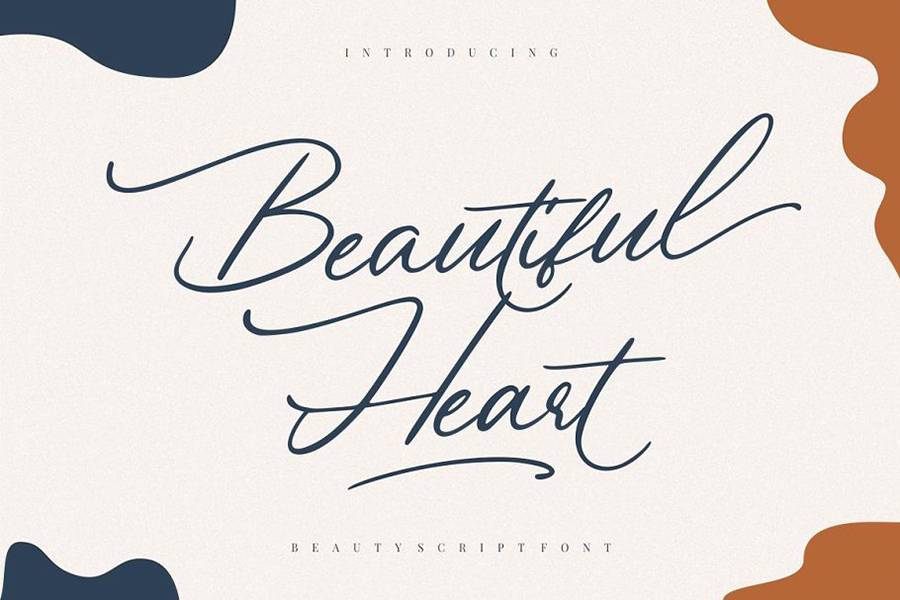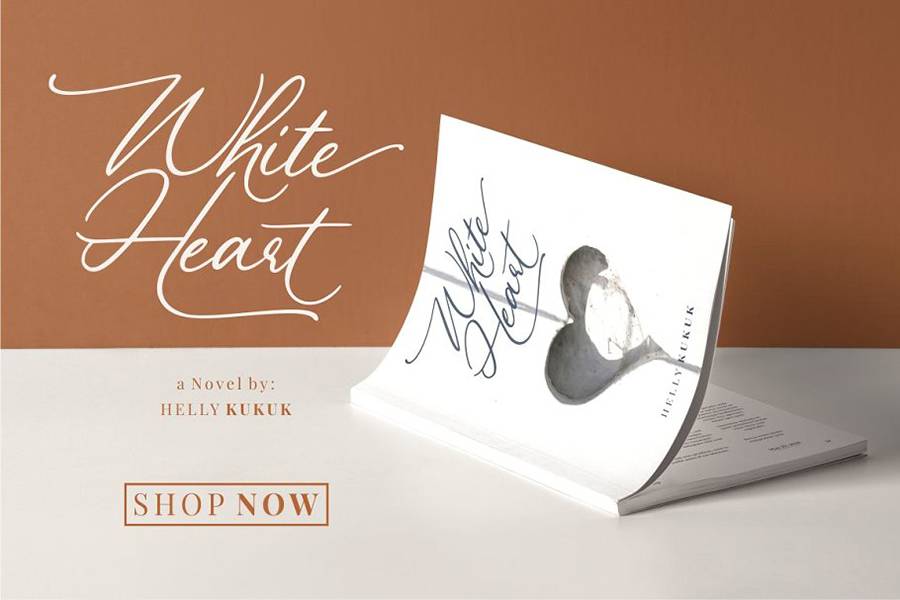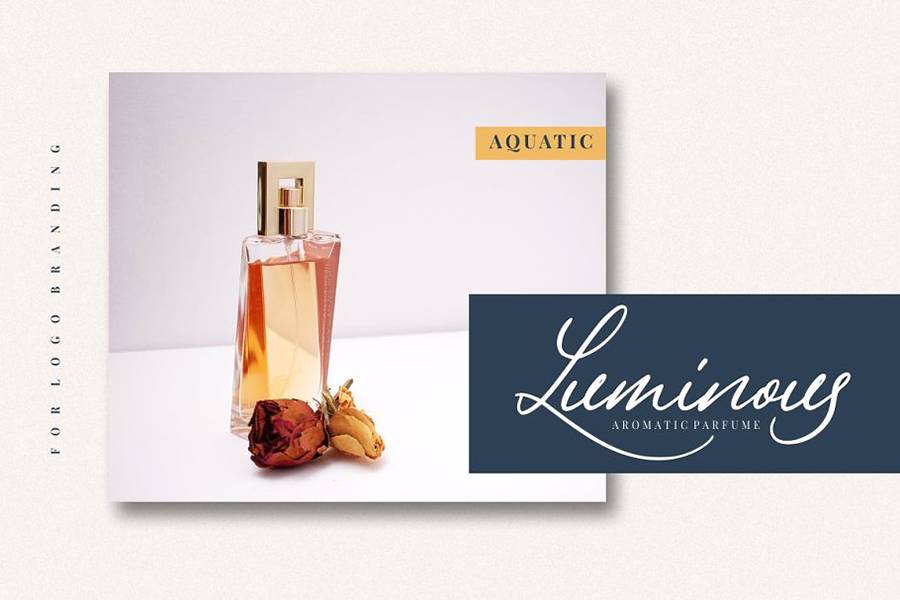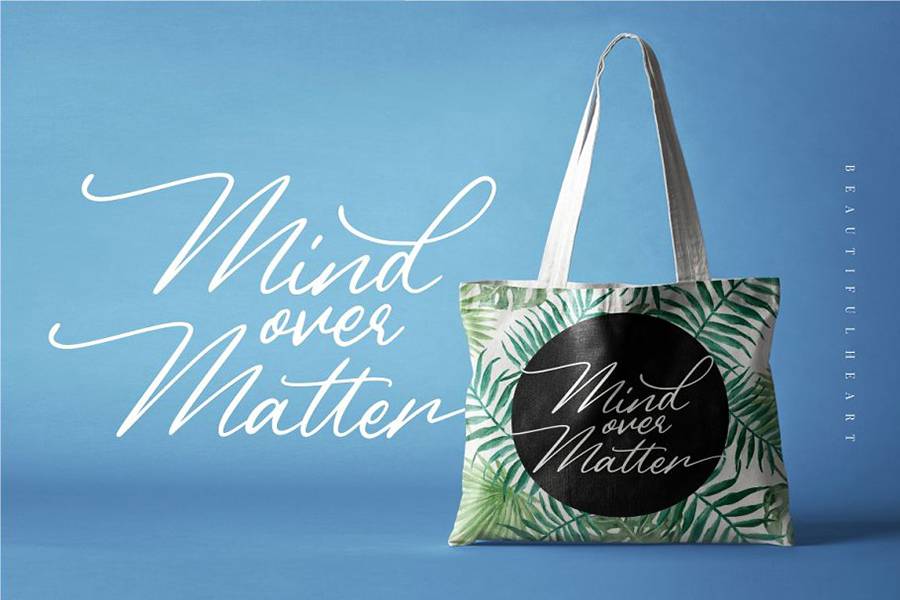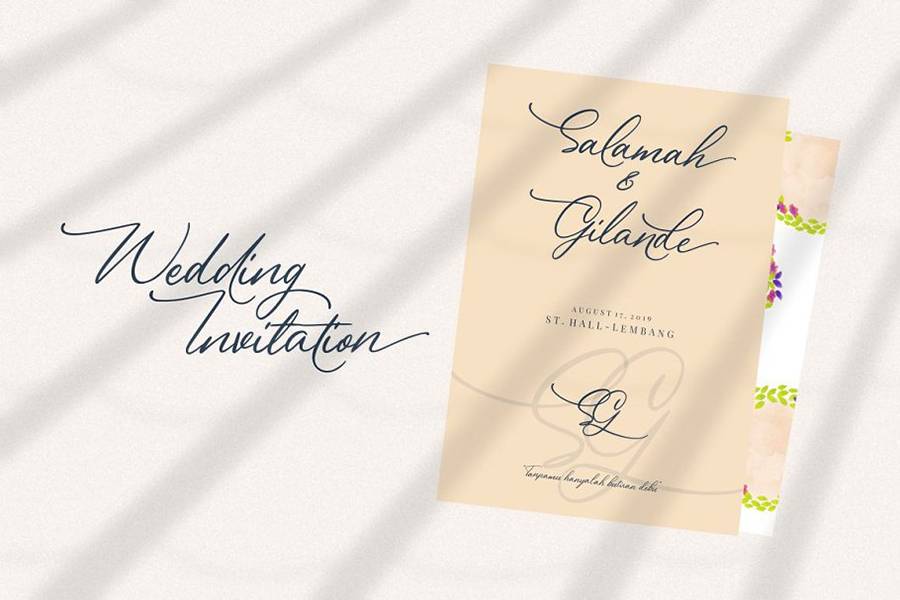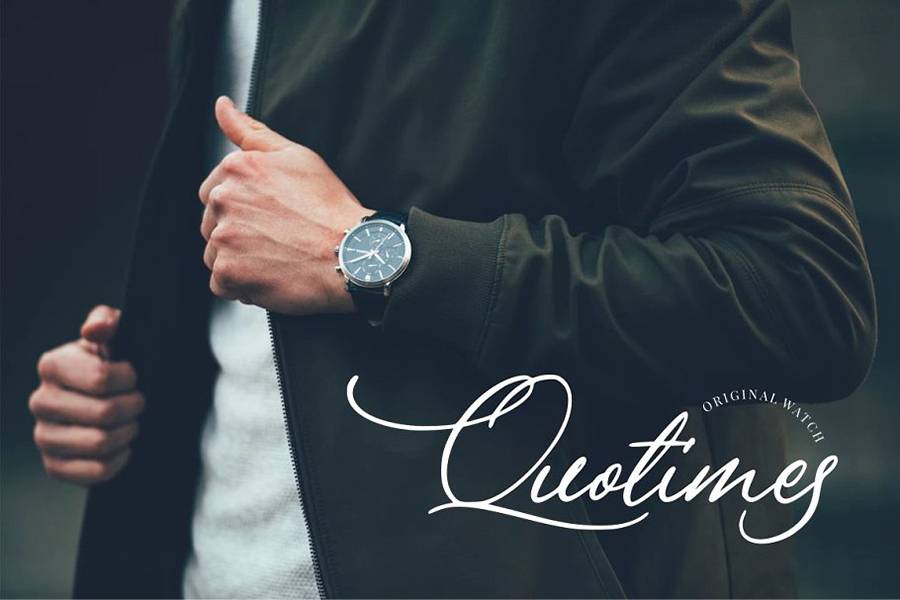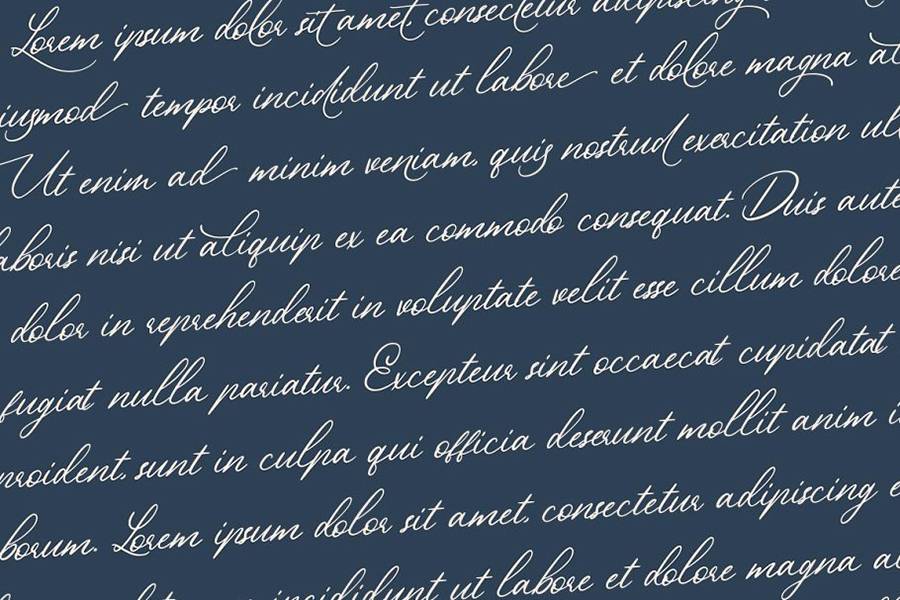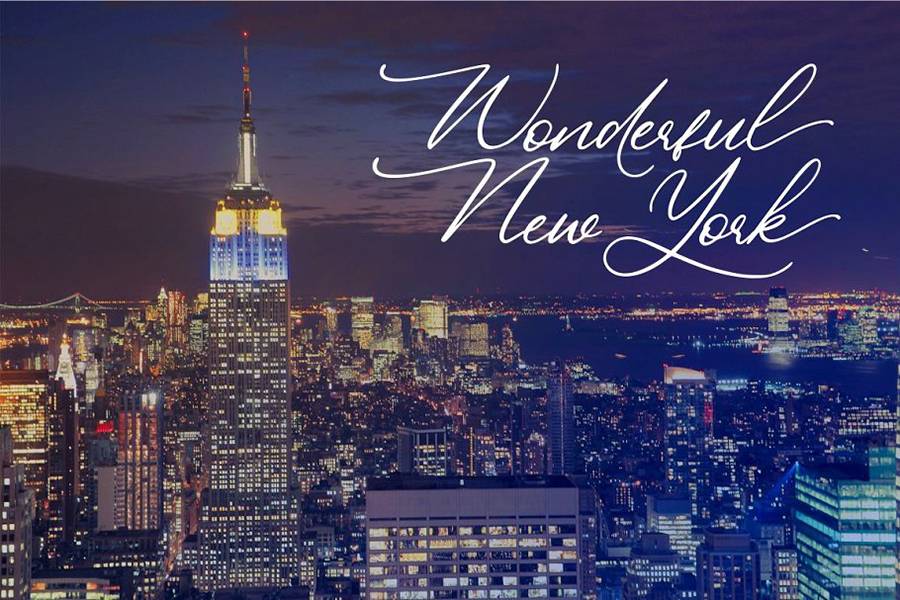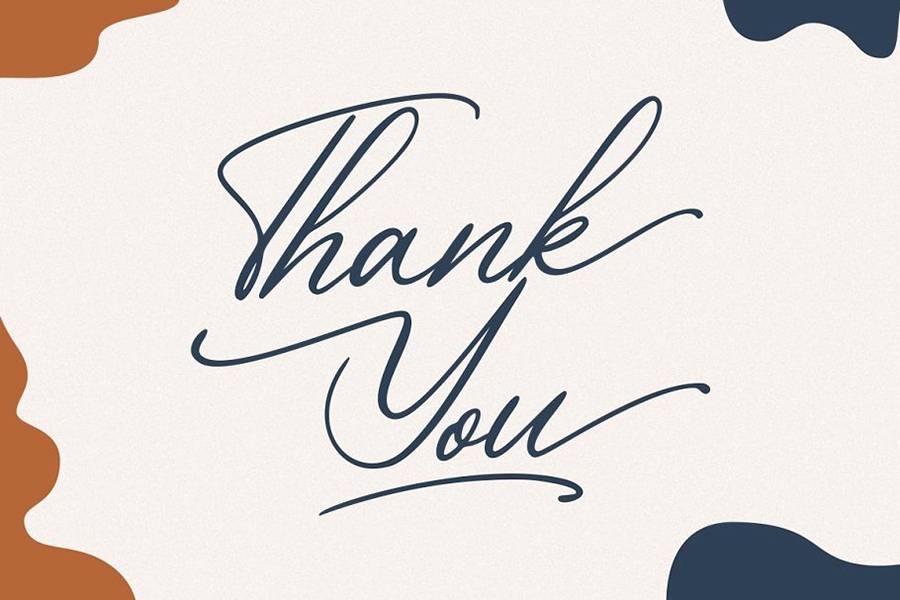
Beautiful Heart Script is an elegant and delicate script font that features a graceful, flowing hand-lettered style with fine, thin strokes and a moderate slant. Its light weight and airy character shapes give it a sophisticated and romantic feel, making it perfect for wedding invitations, luxury branding, and feminine editorial designs. This font’s refined charm and legibility in both uppercase and lowercase letters make it ideal for adding a touch of elegance to headlines, logos, and decorative text.
Beautiful Heart Script Font
About Beautiful Heart Script Font
| Font family | Beautiful Heart Script Font |
| Release date | 2019-07-17 |